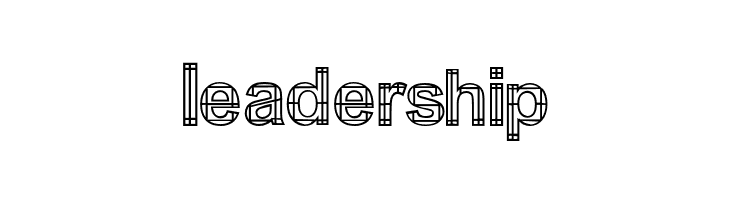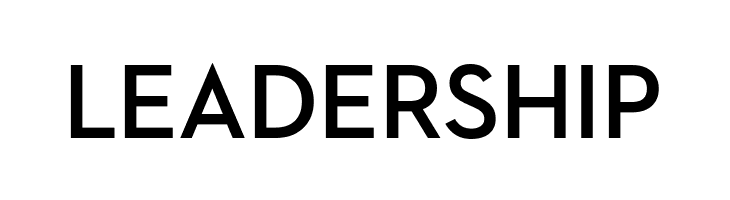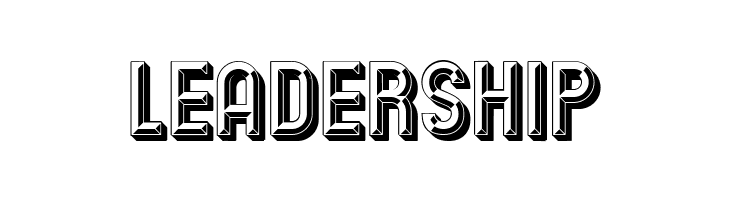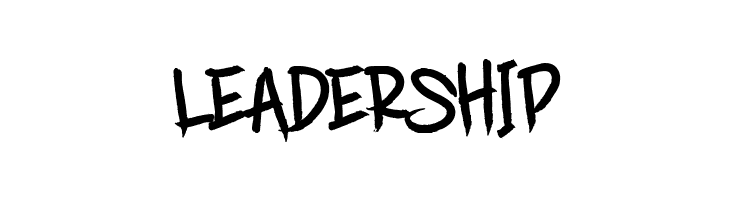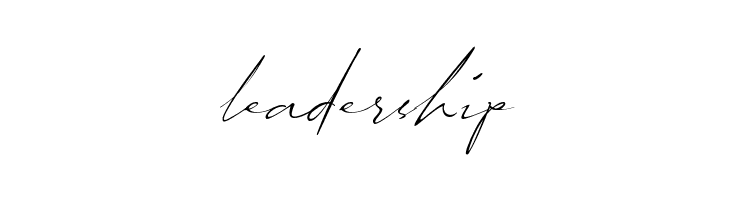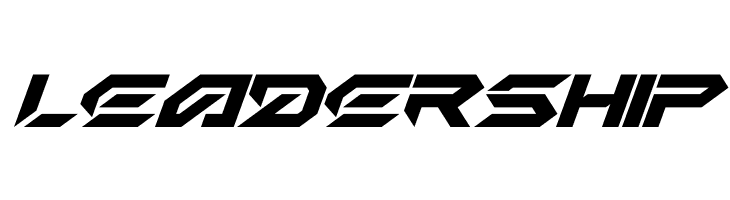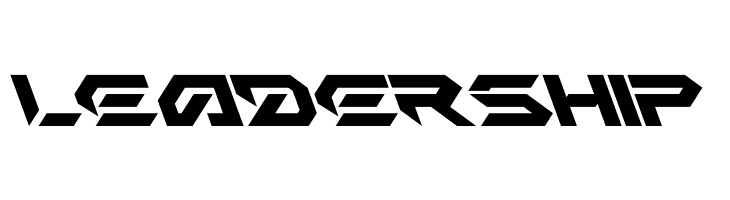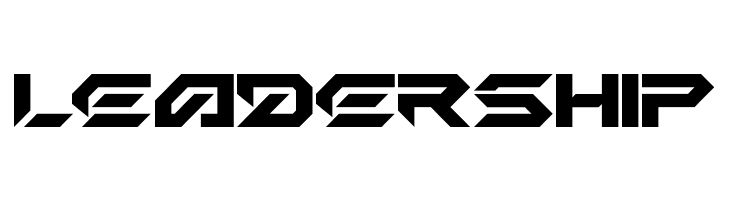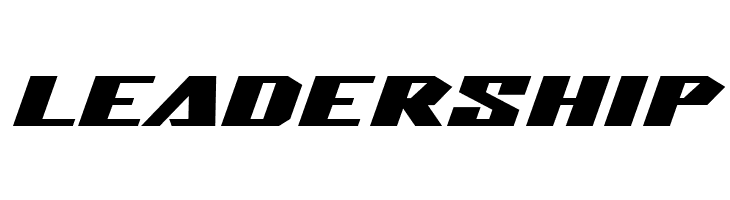
A modern, clean sans-serif font with balanced spacing and clear characters.
A decorative font with illustrated uppercase letters and classic serif lowercase and numbers.
A decorative, double-line font with a geometric, architectural style.
A bold, geometric font with angular shapes and a modern, edgy style.
A festive collection of bold, Irish-themed icons perfect for St. Patrick's Day.
A bold, decorative font with whimsical, medieval-inspired elements.
A bold, gothic-inspired font with sharp serifs and thick strokes.
A bold, decorative font with Celtic influences and angular serifs.
A bold, medieval-style font with calligraphic influences and sharp, flowing forms.
An elegant and flowing script font with intricate swirls and graceful curves.
A graceful, cursive script with elegant, elongated letterforms.
A bold, angular font with a dynamic slant and strong geometric influence.
A bold, geometric sans-serif font with a modern and clean design.
A bold, angular font with a metallic and industrial aesthetic.
A bold, angular font with a metallic outline and futuristic design.
A bold, brush-style font with an energetic, hand-drawn appearance.
A bold, three-dimensional font with an industrial, vintage aesthetic.
A bold, angular, and futuristic italic font with a dynamic and edgy style.
A bold, angular font with a futuristic and aggressive style.
A bold, industrial font with a bolted, mechanical design.